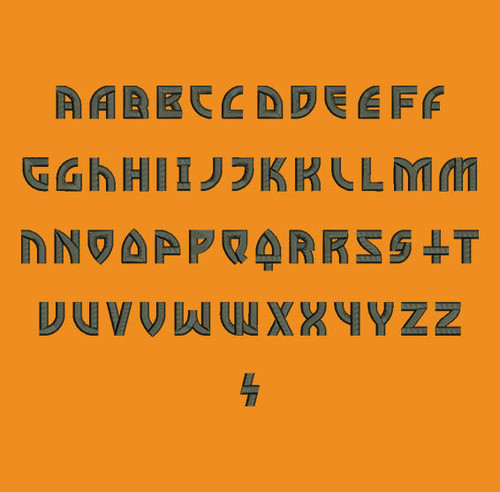
Title: Metal Curve machine embroidery font
This Metal Curve font is perfect for personalizing clothes, bags, towels and linens!
This rockin' font would look amazing as a Monogram on Totes, School bags and purses!